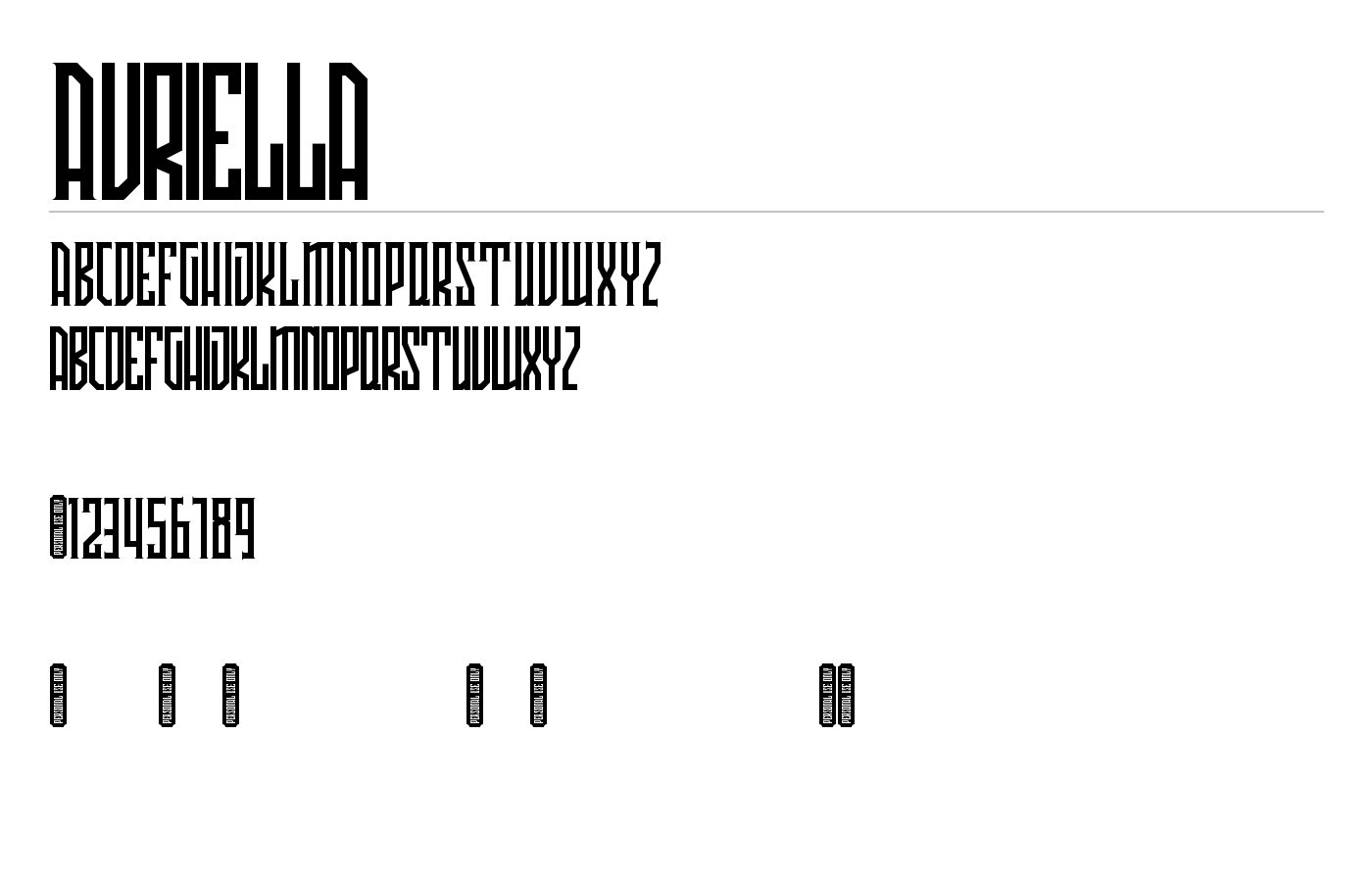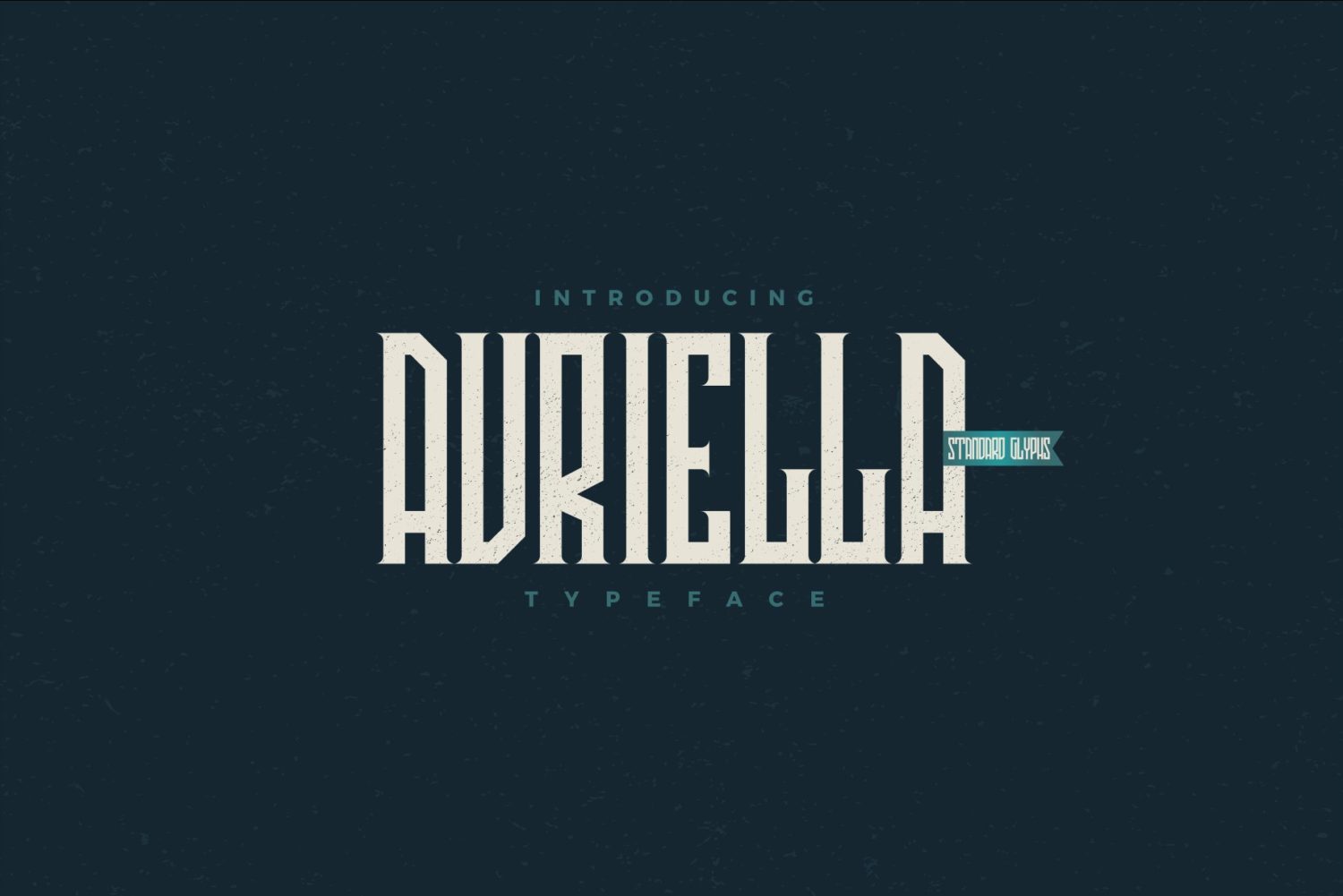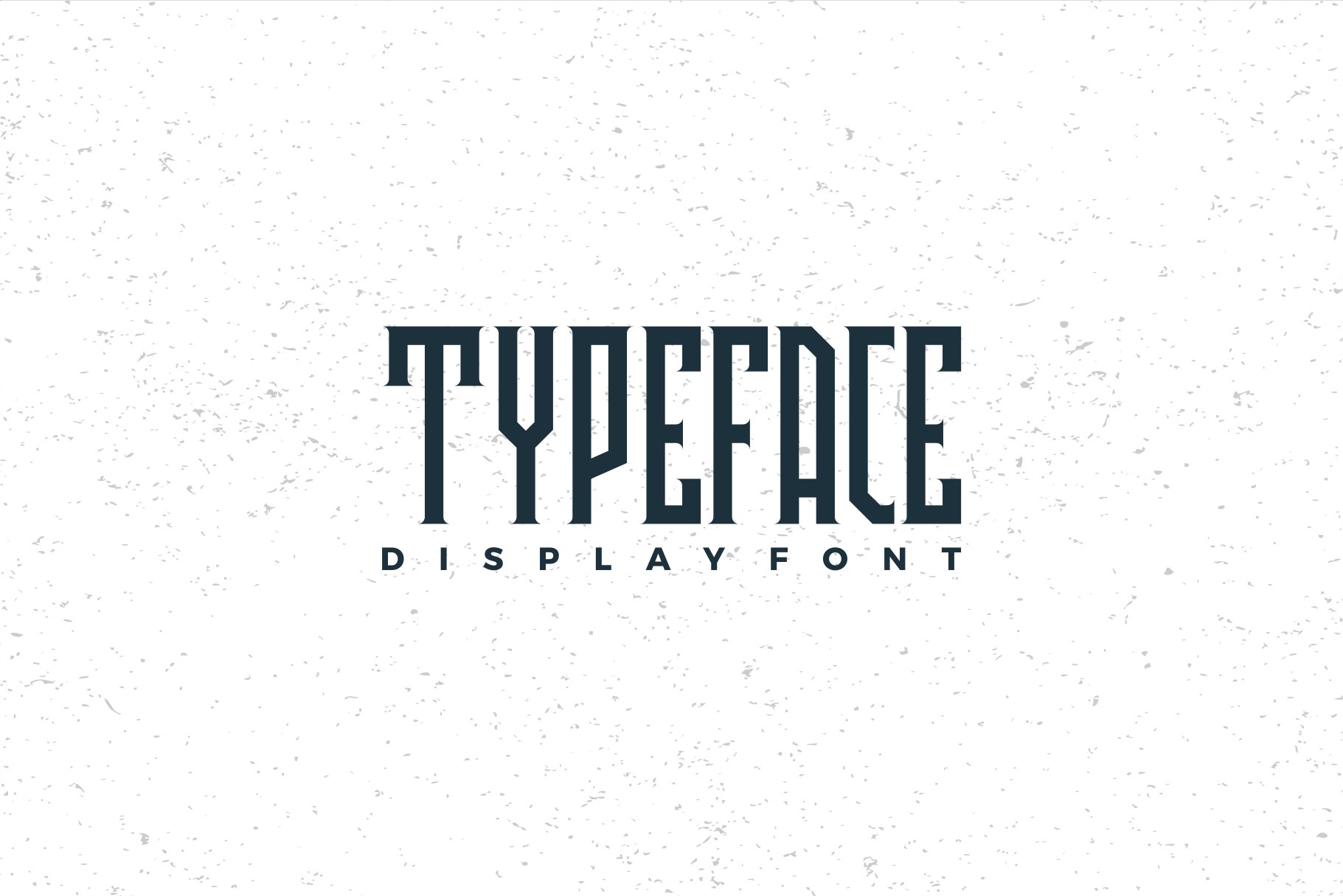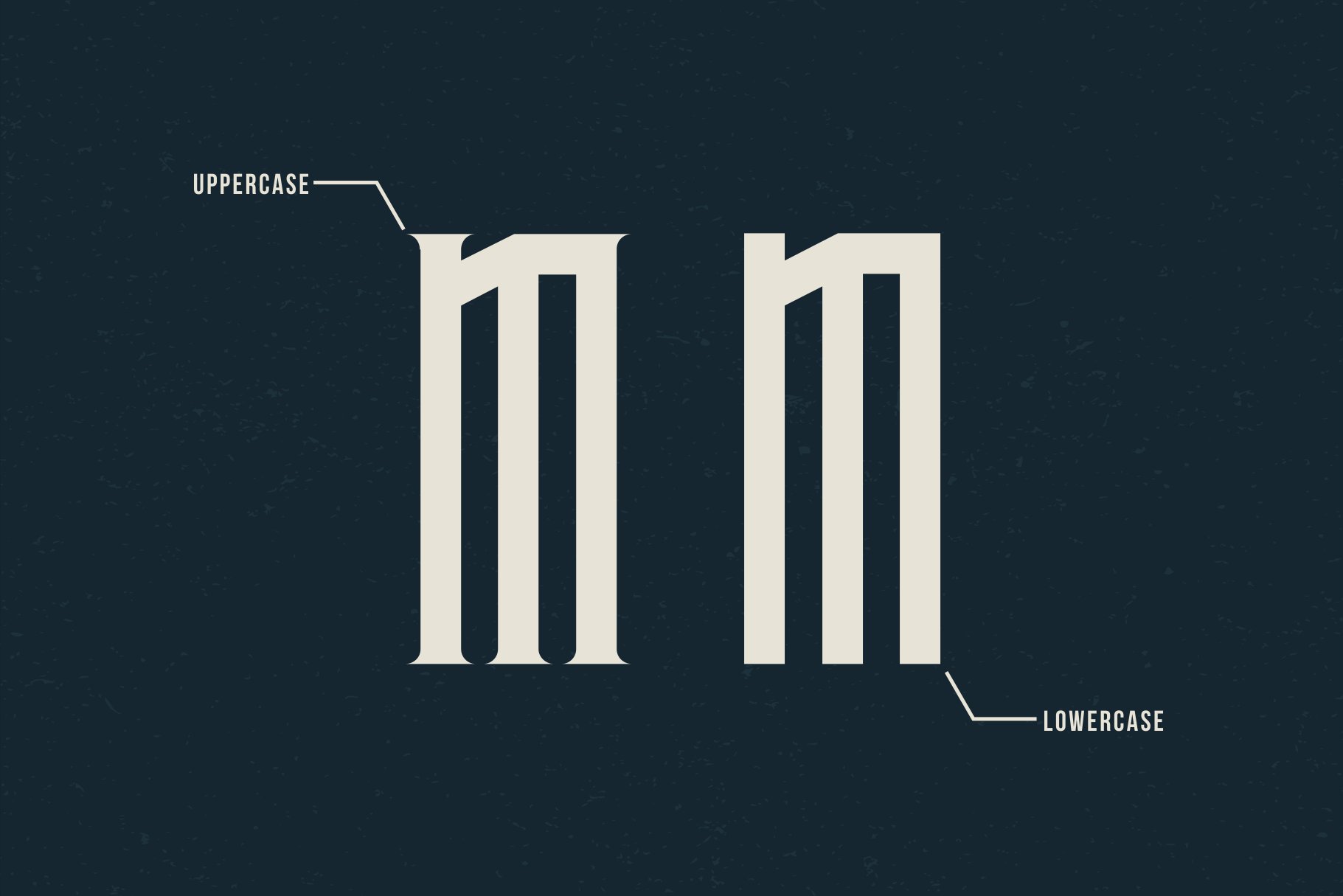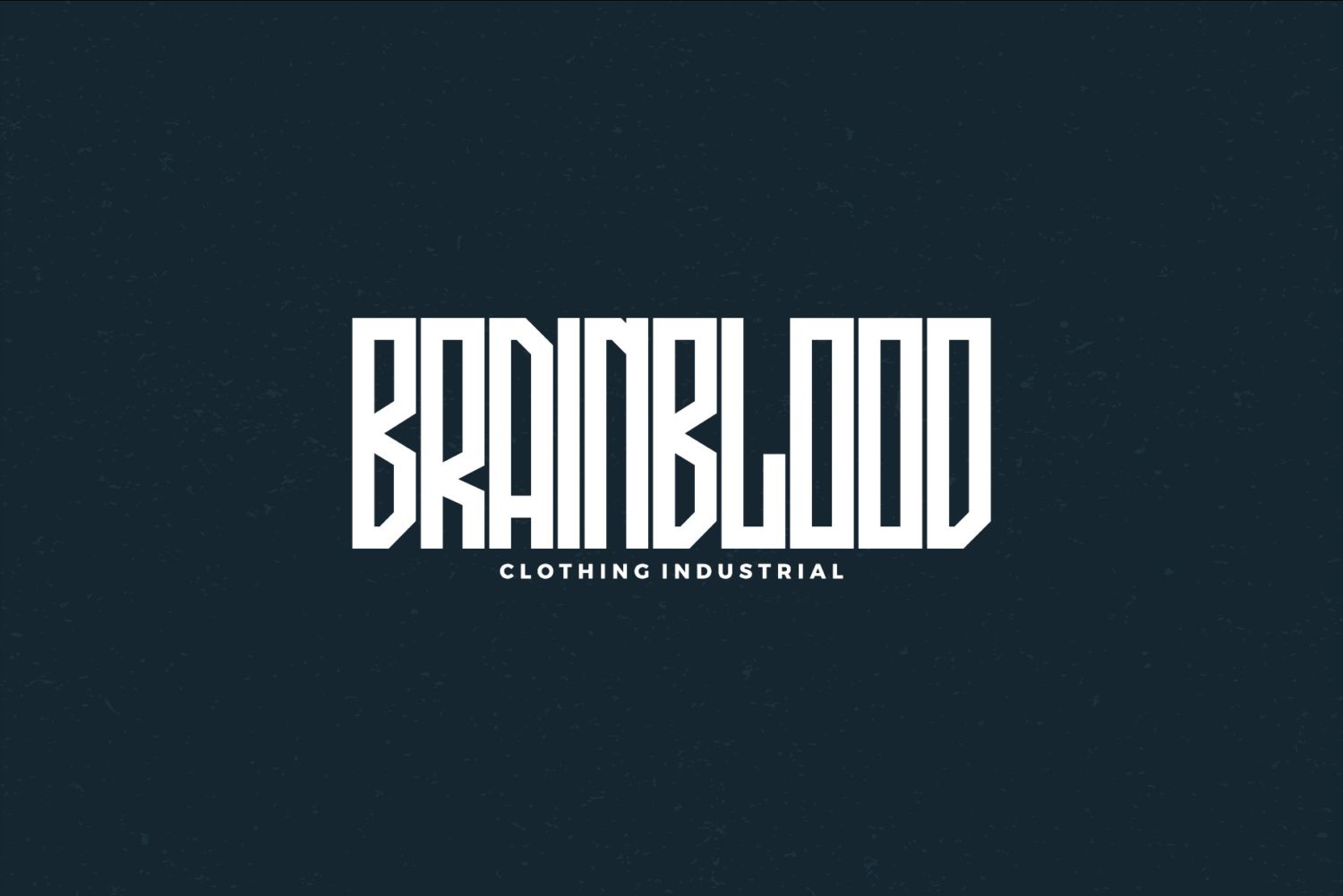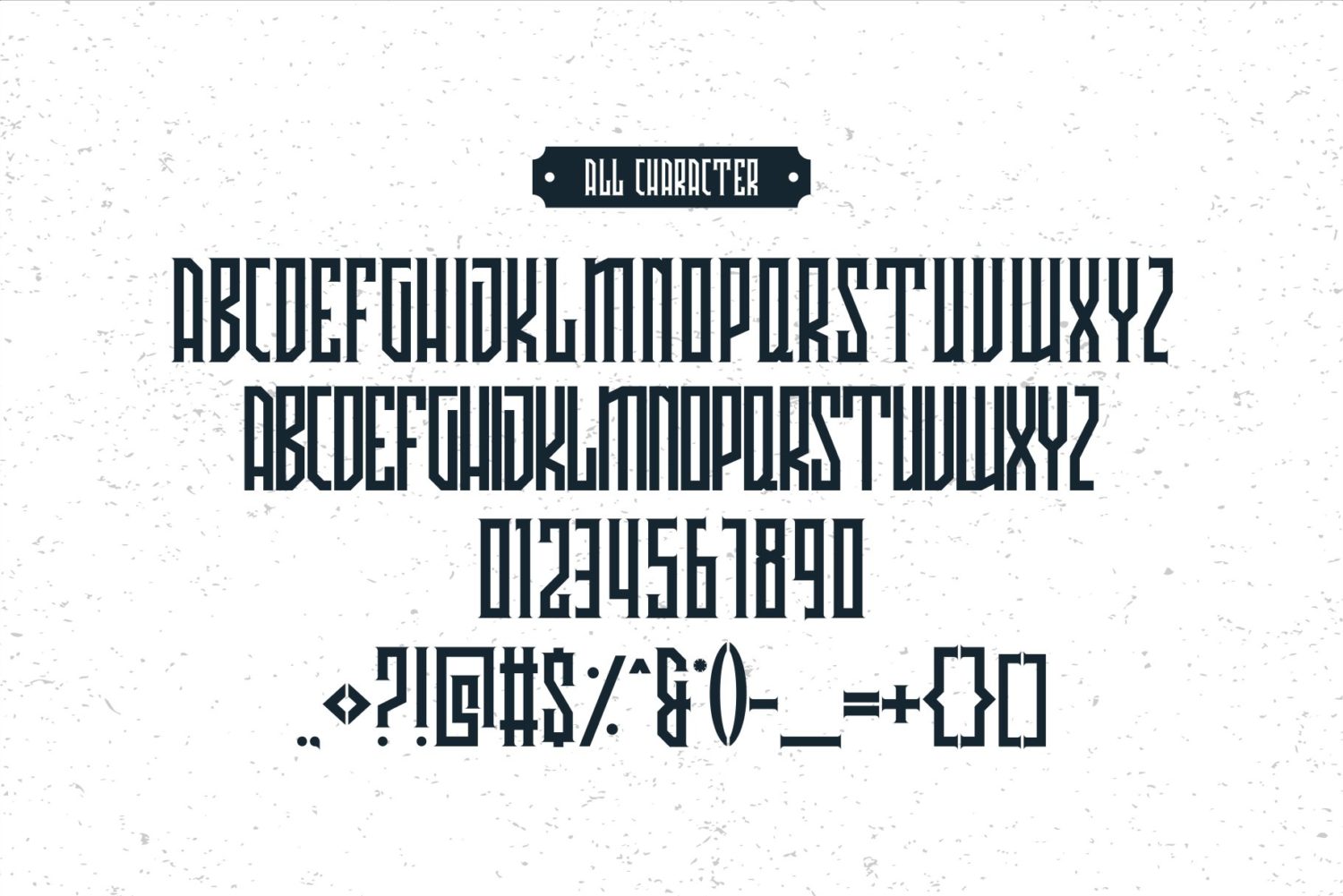
Avriella is a tall, condensed sans serif display font with a modern, geometric feel. Its clean lines and narrow letterforms give it a bold and striking presence, making it ideal for headlines, logos, and branding that require a strong, contemporary look. This font works best in creative and urban designs where a distinctive, edgy style is desired.
Avriella Font Demo
About Avriella Font Demo